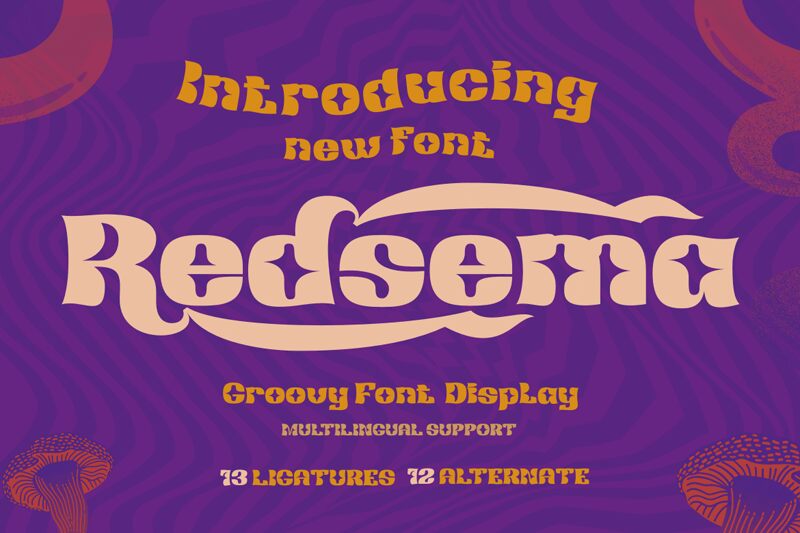
Redsema, a captivating display font crafted by Twinletter, exudes a bold and groovy aesthetic. With its expanded width and distinctive letterforms, this font commands attention, capturing the essence of retro-inspired design with a modern twist. The robust and confident character of Redsema invites designers to explore its emotive potential, leveraging its unique personality to craft eye-catching headlines, impactful branding, and visually striking typographic compositions.
Redsema's versatility shines through its ability to seamlessly integrate into a wide range of design contexts. From editorial layouts to packaging design, this font's expansive and expressive nature lends itself effortlessly to projects that seek to make a lasting impression. Whether you're crafting a dynamic concert poster, designing a captivating book cover, or curating a brand identity with a touch of vintage flair, Redsema's distinctive style is sure to elevate your creative vision.